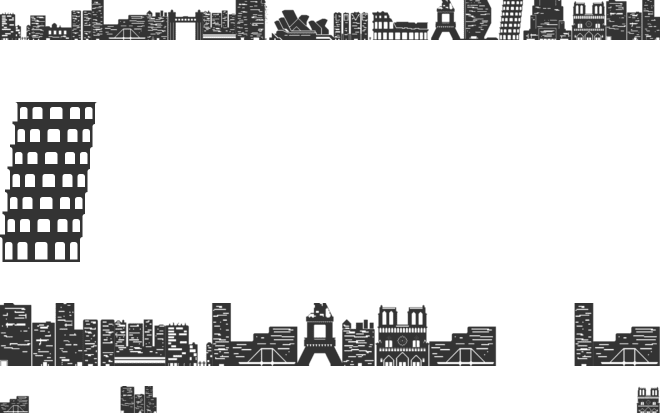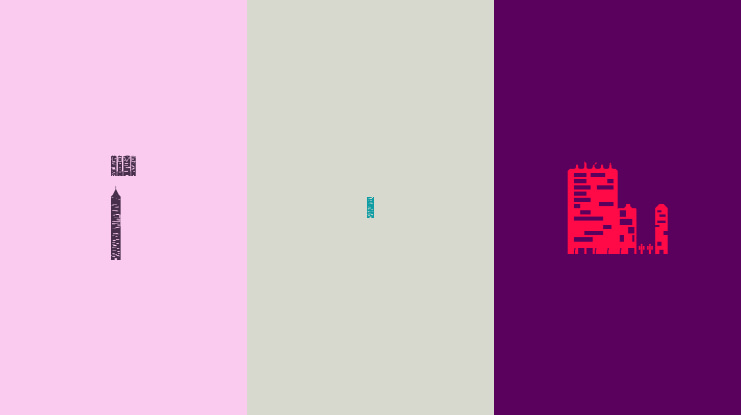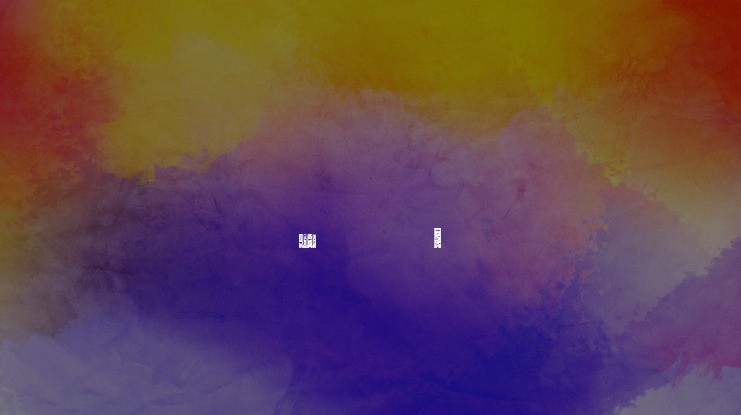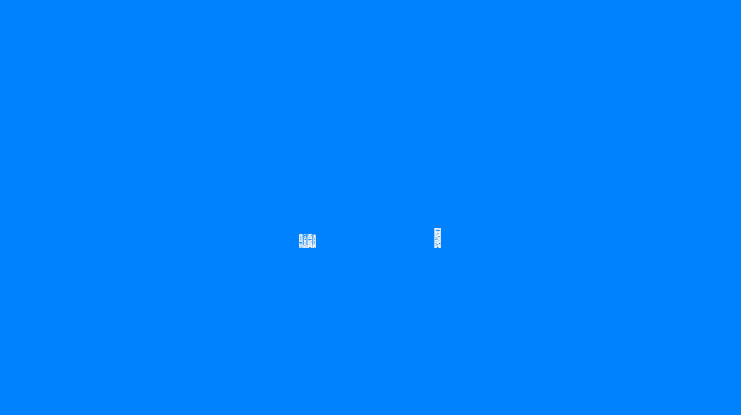
skylife Font
in work.. a type who's combinated a skyline
G = London, Tower Bridge J = Scene from the Film «King Kong» K = Sydney, Opera House M = Roma, Kolosseum N = Paris, Eifeltower (in work) O = Dubai, Burj al Arab P = Pisa, Leaning Tower Q = Dubai, Burdsch Chalifa (highest tower of the world) R = Paris, Notre Dame